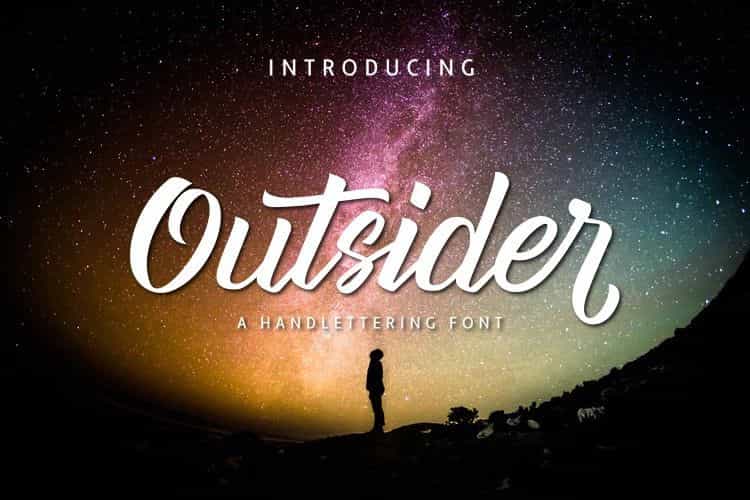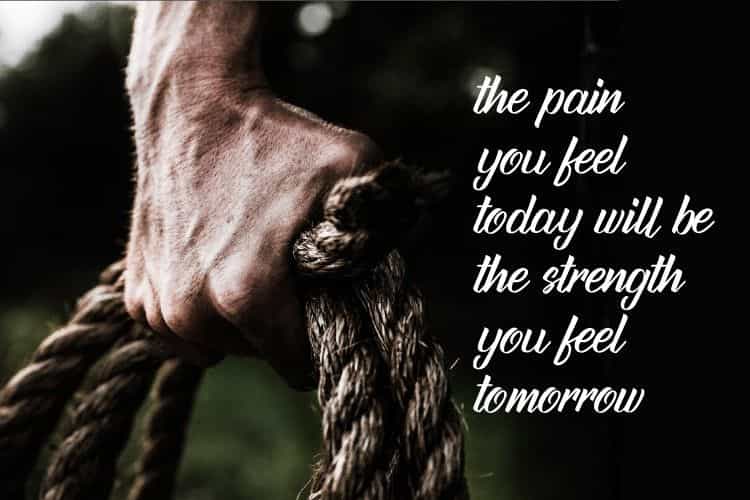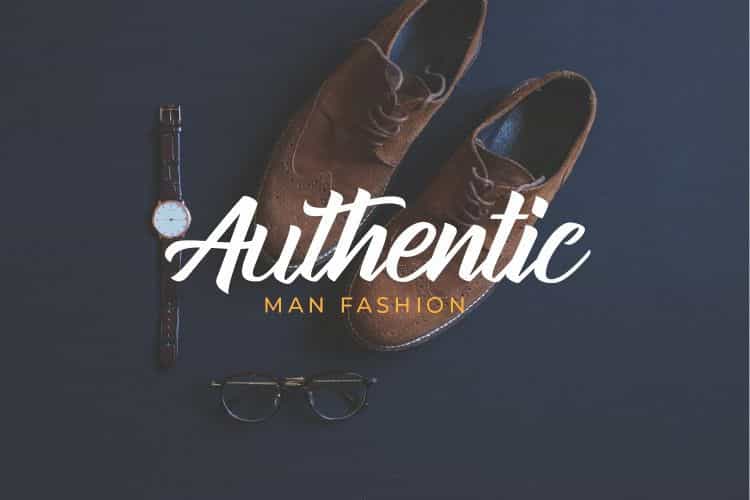
Discover Outsider Font, part of the Brush Handwritten collection—a versatile and unique font perfect for adding a personal touch to your projects. Download it for free and enjoy crafting designs with style, from invitations to social media posts. This font is available exclusively for personal use, giving you the freedom to create without limits. Unlock your creativity with Outsider Font today!
Outsider Font is a handwritten font that is inspired by the original handwritten script, which helps to make the types look interesting and beautiful works. Outsider is well suited for branding projects, home-ware designs, product packaging, headers for magazines or just as a nice text on top of any picture.